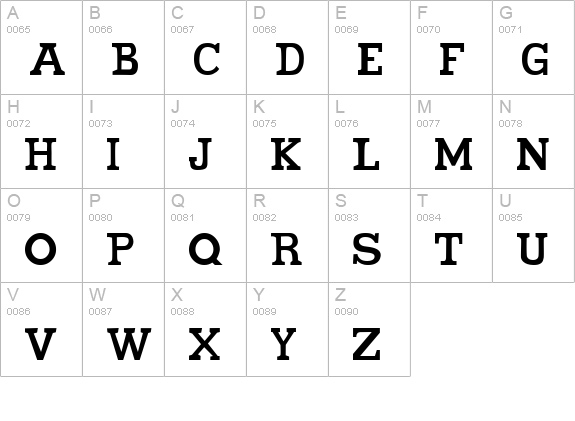
Introducing All Star Font – the epitome of elegance and versatility. This exquisite typeface combines modern sophistication with a timeless charm, making it a perfect choice for a wide range of creative projects. With its clean lines, graceful curves, and meticulously crafted letterforms, All Star Font effortlessly captures attention and leaves a lasting impression. What sets All Star Font apart is not only its impeccable design but also its accessibility. This remarkable font is available for free download exclusively at FontsMarket.com. Yes, you read that right – absolutely free! We believe in the power of creativity and accessibility for all, which is why we are thrilled to offer this incredible font at no cost to you. Whether you're working on a professional design project, branding materials, invitations, or simply adding a touch of elegance to your personal creations, All Star Font is here to elevate your work to new heights. Its versatility allows it to seamlessly adapt to various styles and contexts, making it a truly indispensable tool for designers, artists, and creatives of all backgrounds. With All Star Font, you can unleash your imagination and transform your ideas into breathtaking visuals. Its extensive character set ensures that you have all the tools you need to bring your vision to life, while its flawless readability guarantees that your message will be conveyed with clarity and impact. So why wait? Embrace the beauty of All Star Font and let your creativity shine. Download this exceptional typeface for free exclusively at FontsMarket.com, and unlock a world of endless possibilities. Experience the allure and versatility of All Star Font today and make your design dreams a reality.